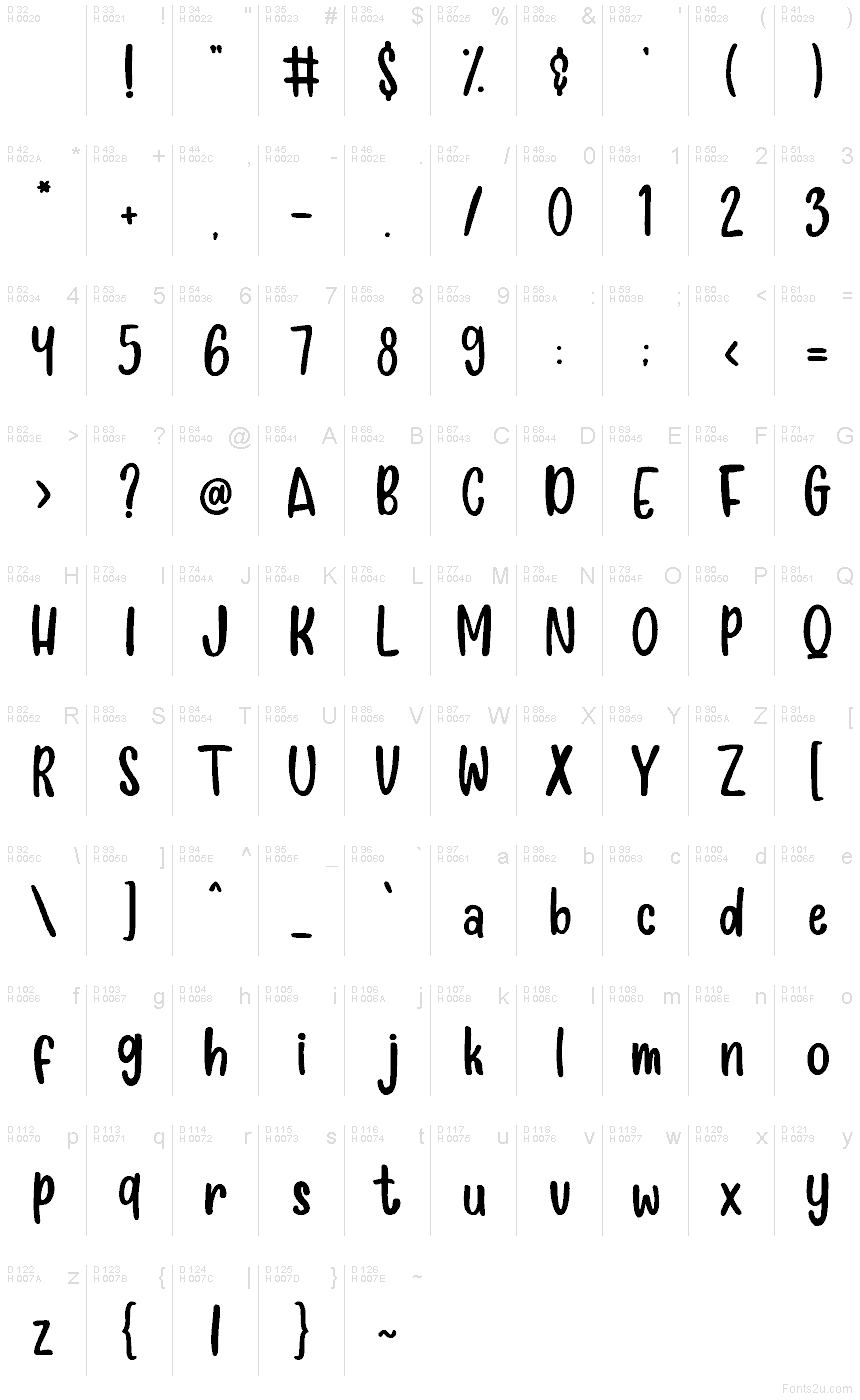
Baby Smooch
Baby Smooch font presents a playful, upbeat, and soft style. This font features thin condensed letters whose cartoons-like style appeals children and adults alike. Its overall fun look is achieved with the help of imperfections in every letter which match well its curvy baseline. Get ready to be amazed by Baby Smooch’s modern appeal, friendly ambiance, and humorous approach.
This free display font from Dm Letter Studio can be used for packaging design projects such as food/snack boxes or labels. Visual identity designers can also have fun creating logos for campaigns, products, or companies using this typeface as their main title choice. Posters aimed at kids and book covers are further suggestions for exploration.